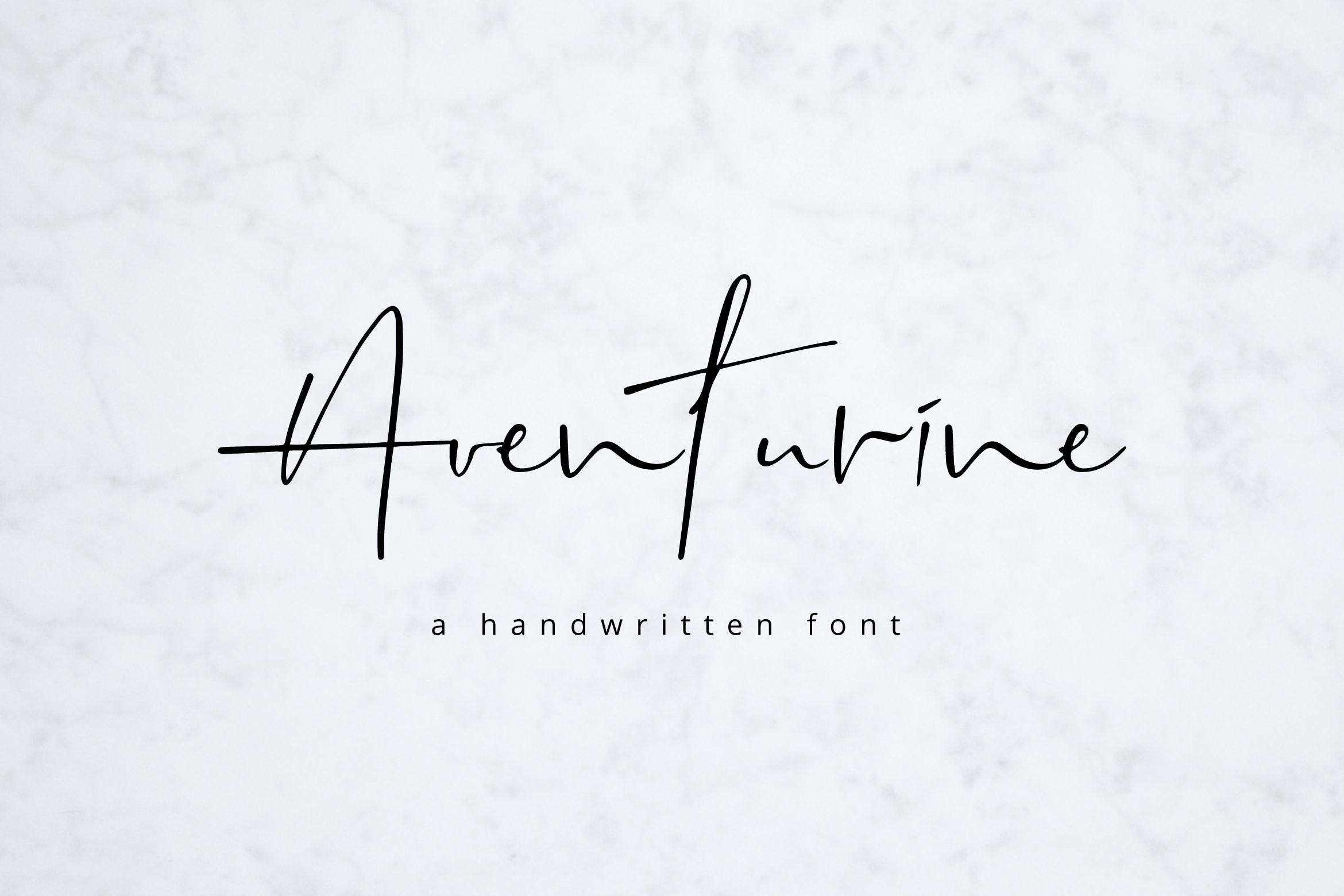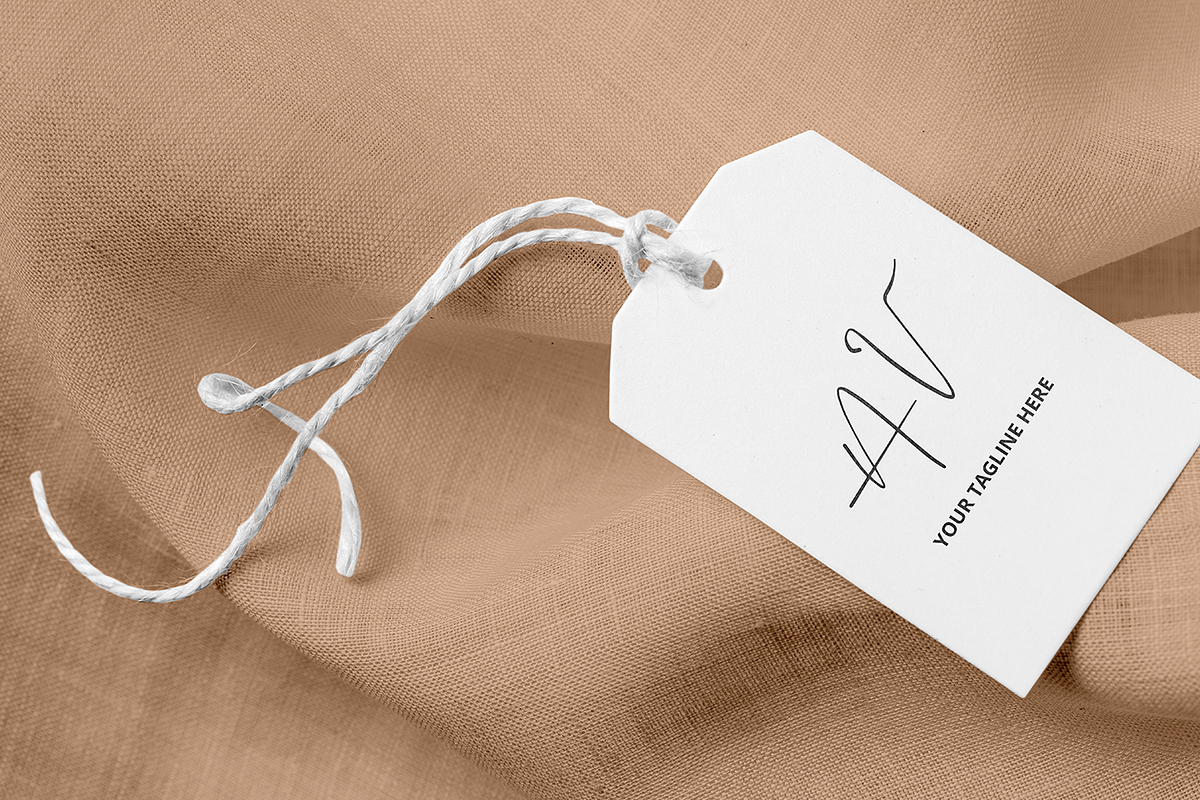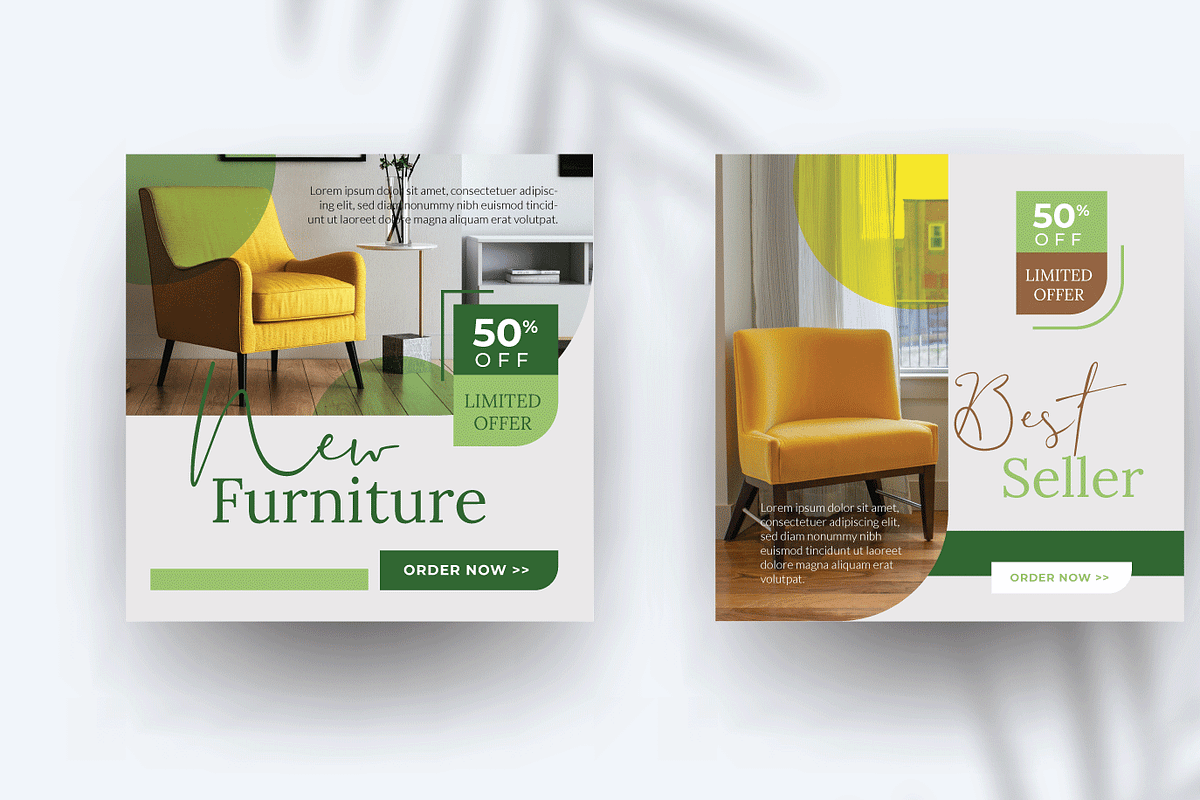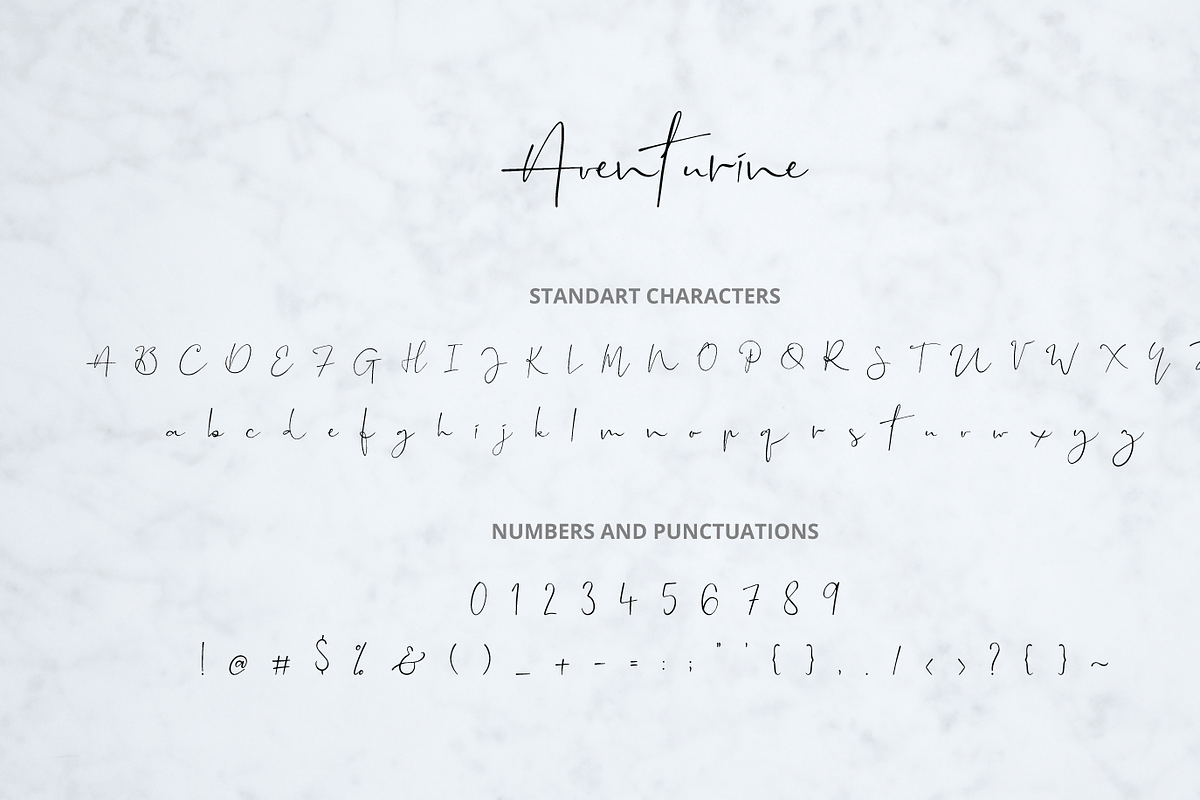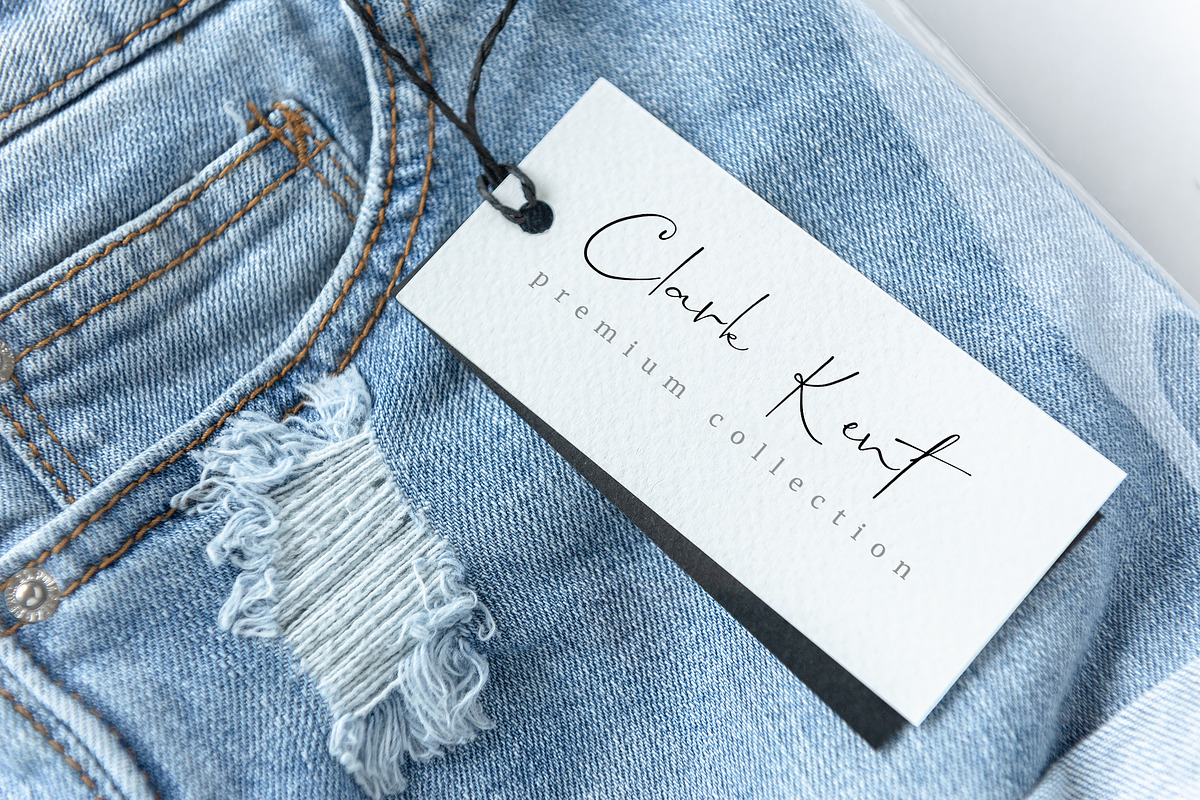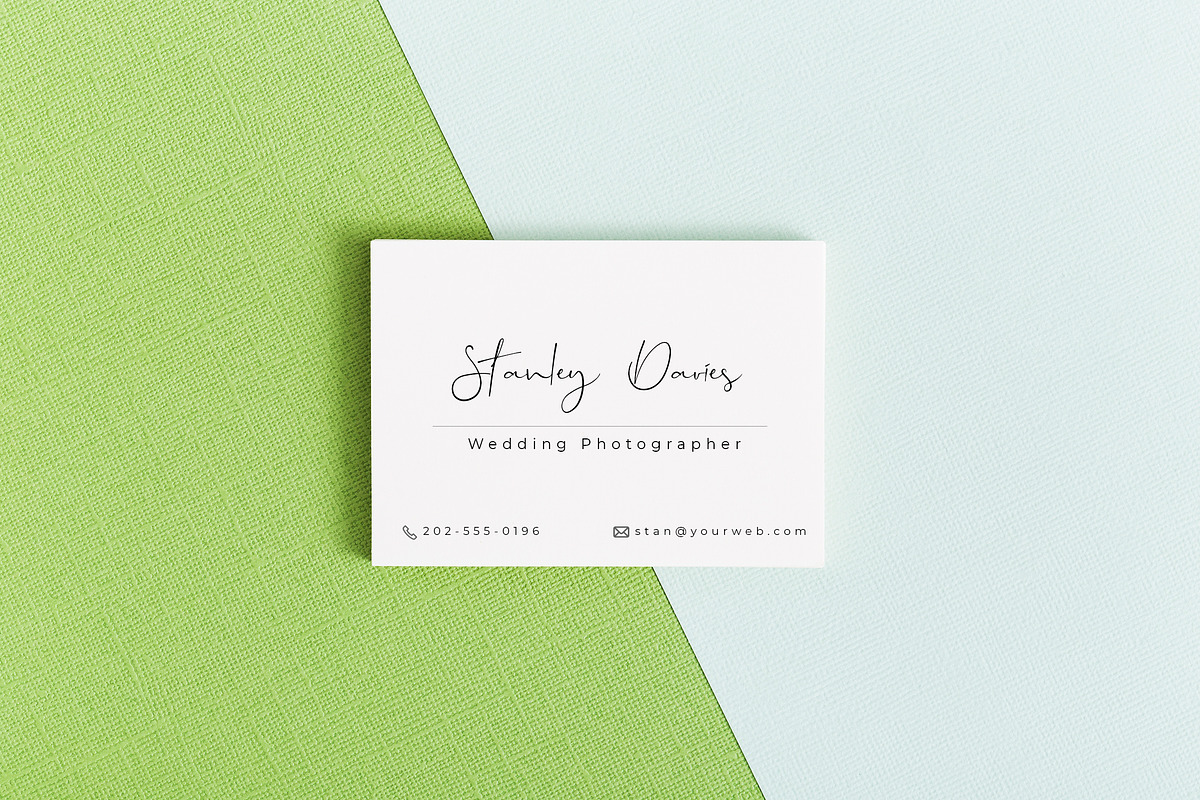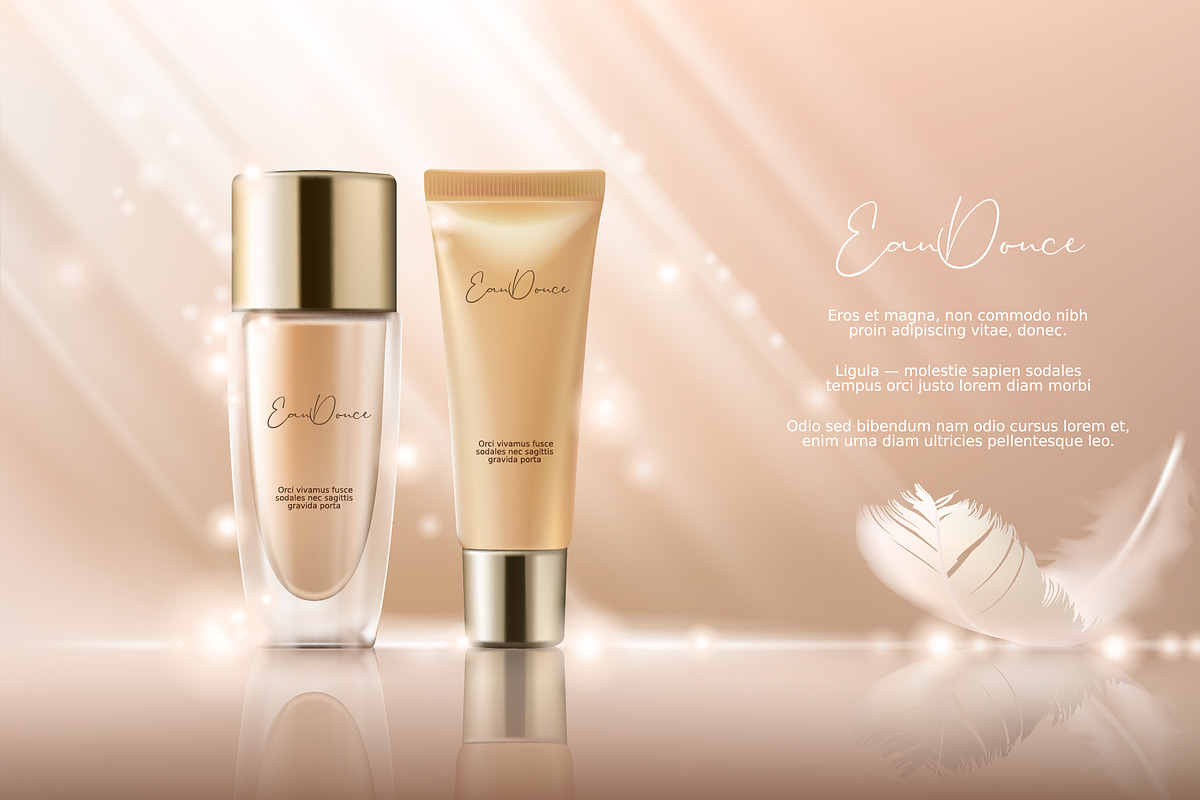
Authentic Handwritten Font
Aventurine is a handwritten font that works great for products design and also other design needs like branding, modern advertising design, logos, poster quote, book/cover Title, editorial design, website/blog, card, custom mug, pillow, t-shirts, and any hand-lettered needs.